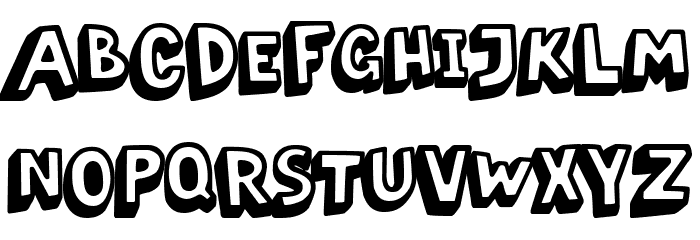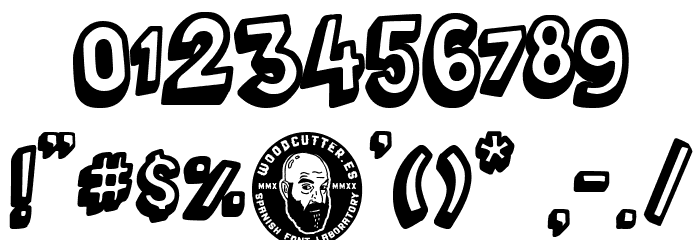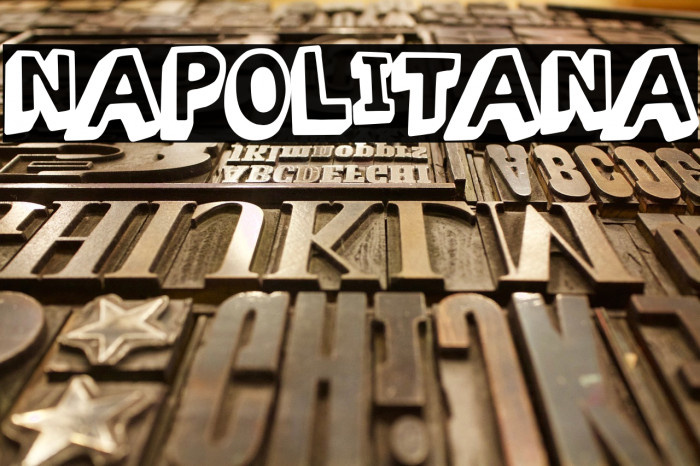
Napolitana Font
This font features a bold, playful style with thick, rounded edges and a cartoonish appearance. The letters are slightly irregular, giving them a hand-drawn feel that adds to their whimsical charm. The uppercase and lowercase characters maintain a consistent style, with a strong emphasis on boldness and visibility. The numbers and special characters are equally bold and maintain the same playful aesthetic, making them suitable for a variety of creative projects. The font's overall design is eye-catching and ideal for projects that require a fun and engaging look.
A bold, playful font with a cartoonish, hand-drawn style.
- Proposed Projects: Ideal for children's books, comic strips, playful branding, and eye-catching posters.
- Overall Style: Playful, Cartoonish